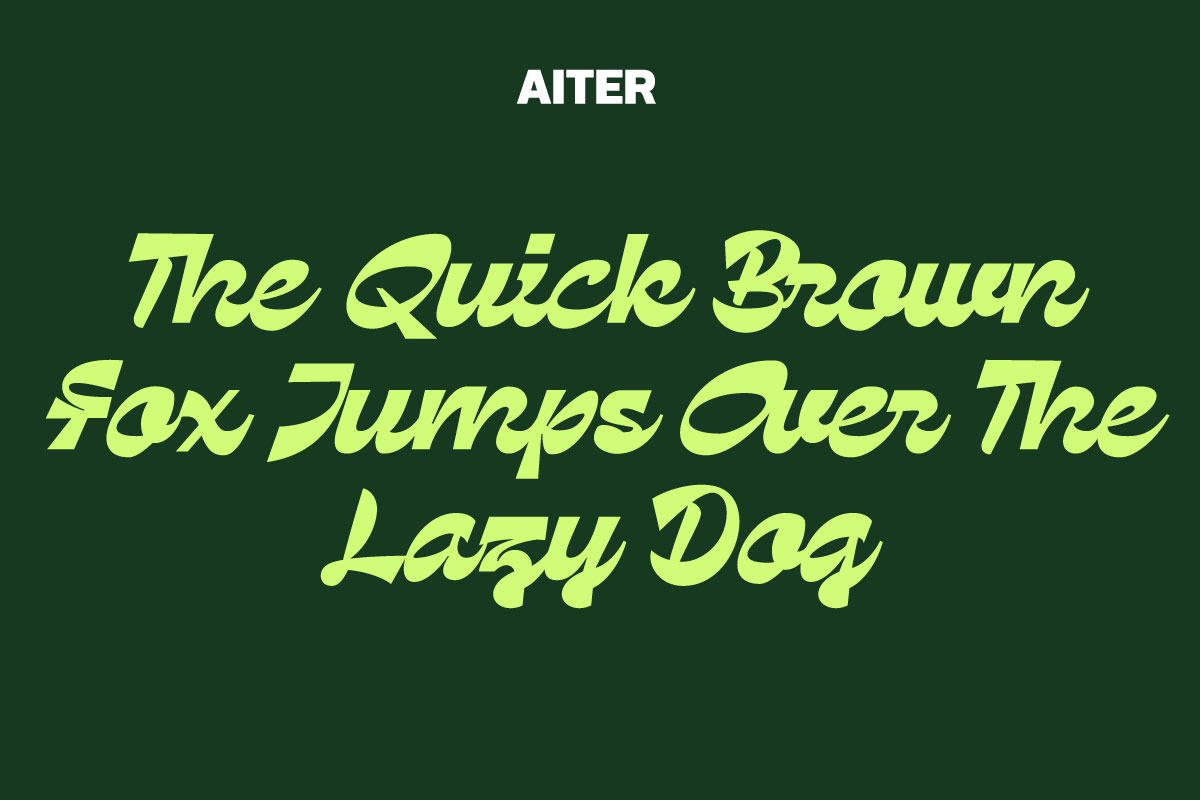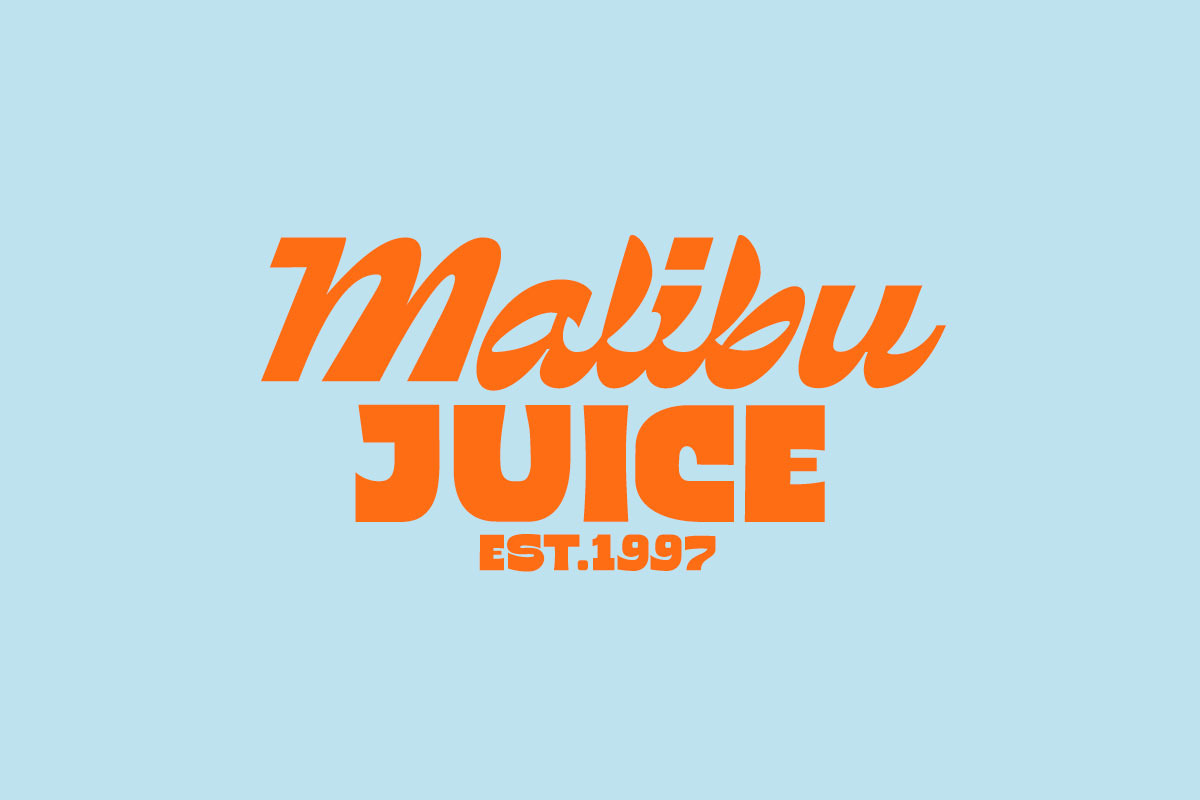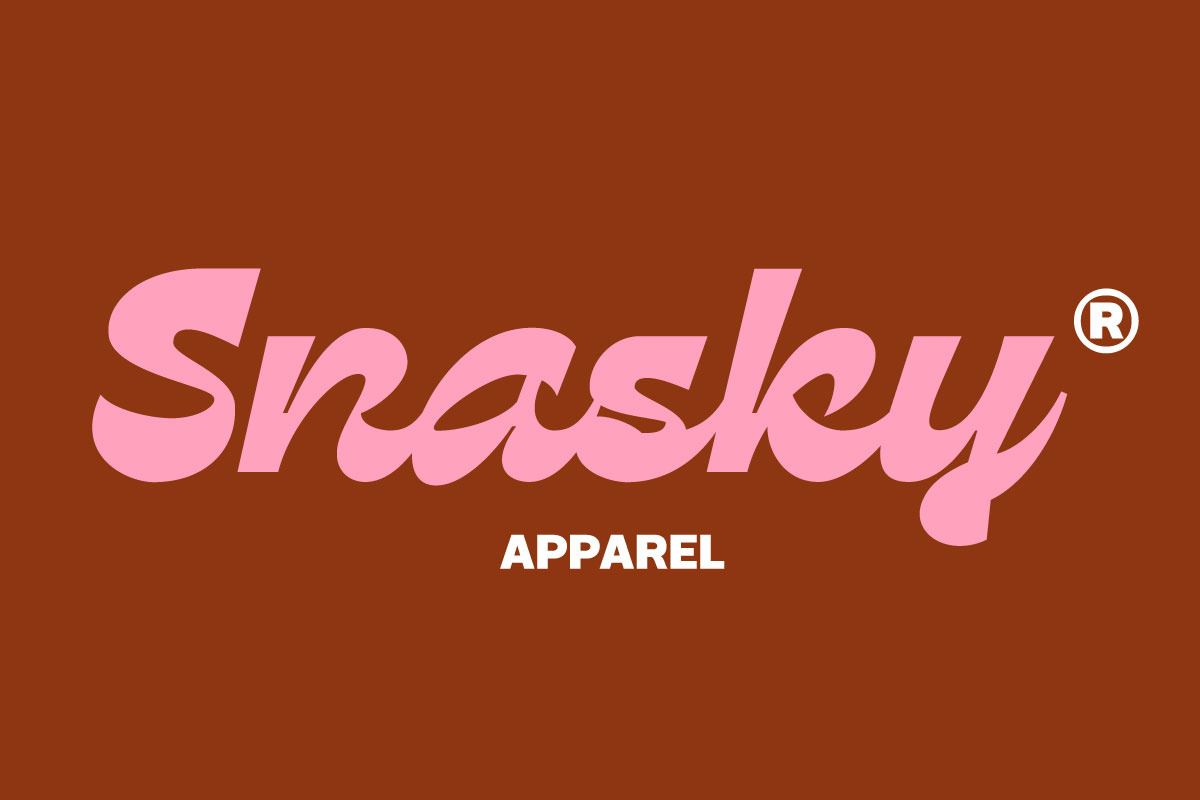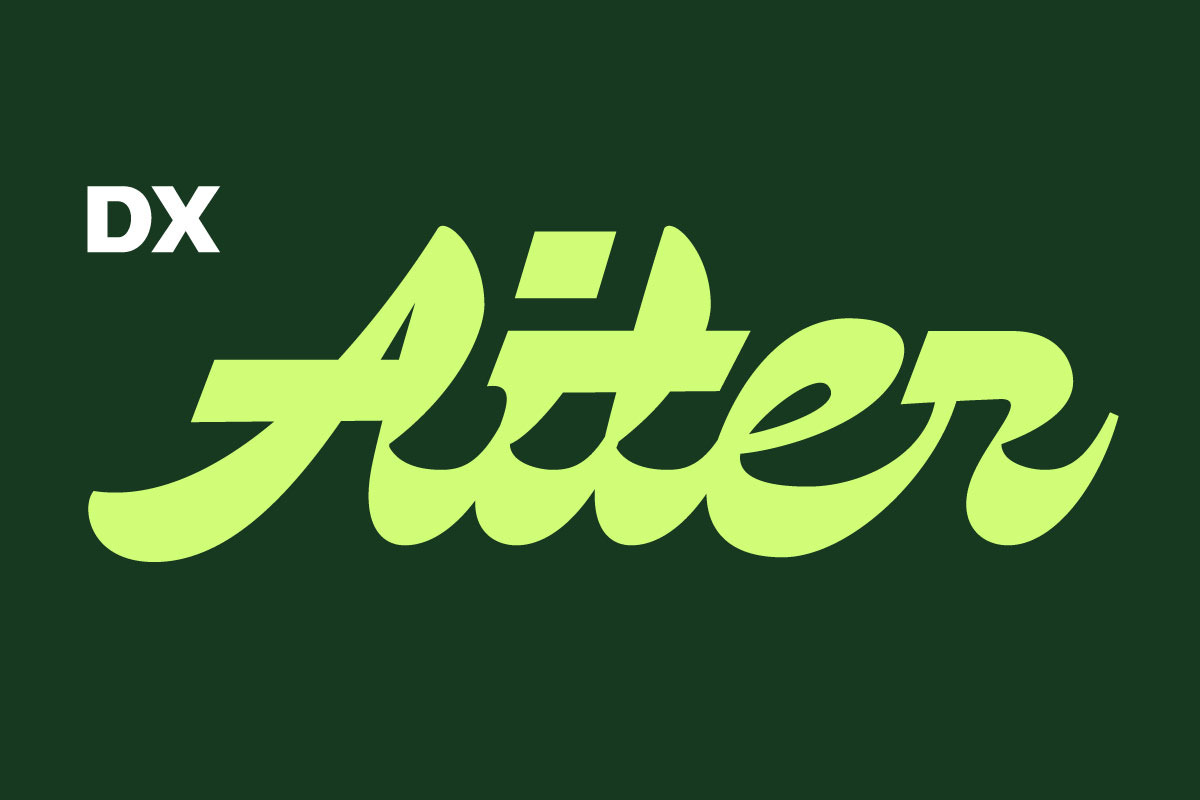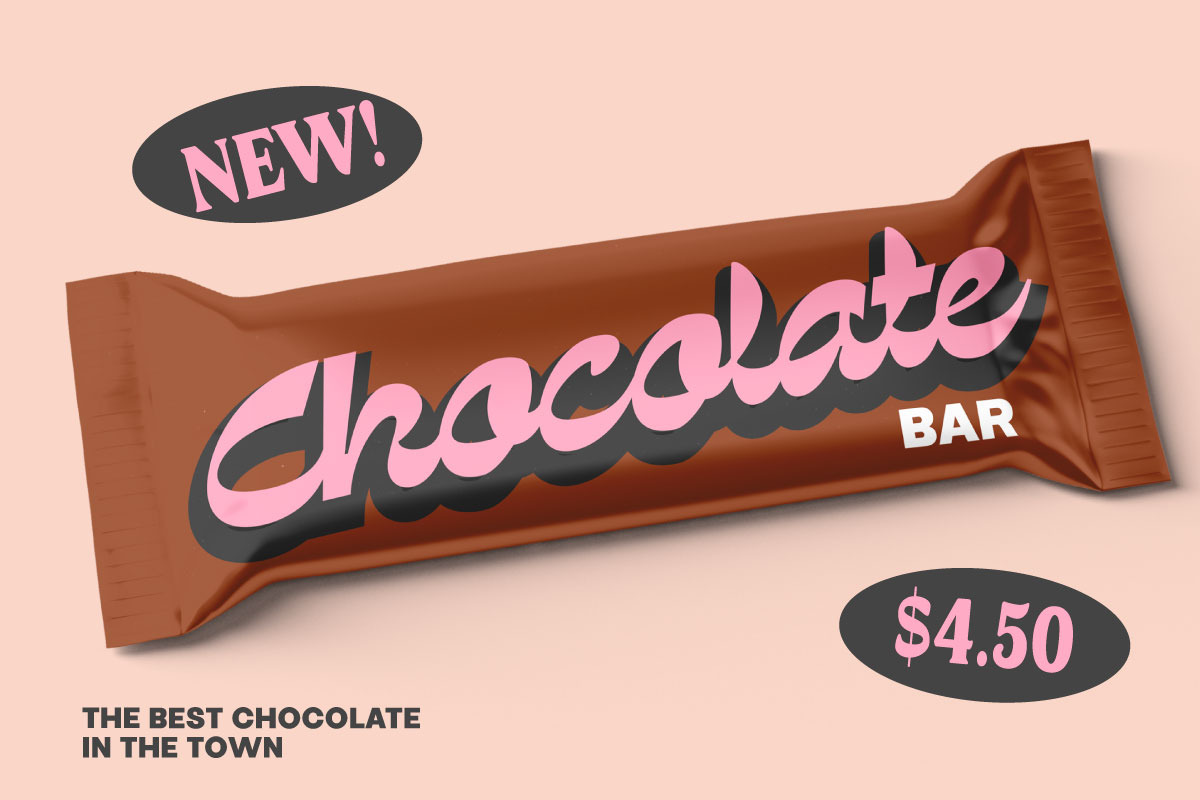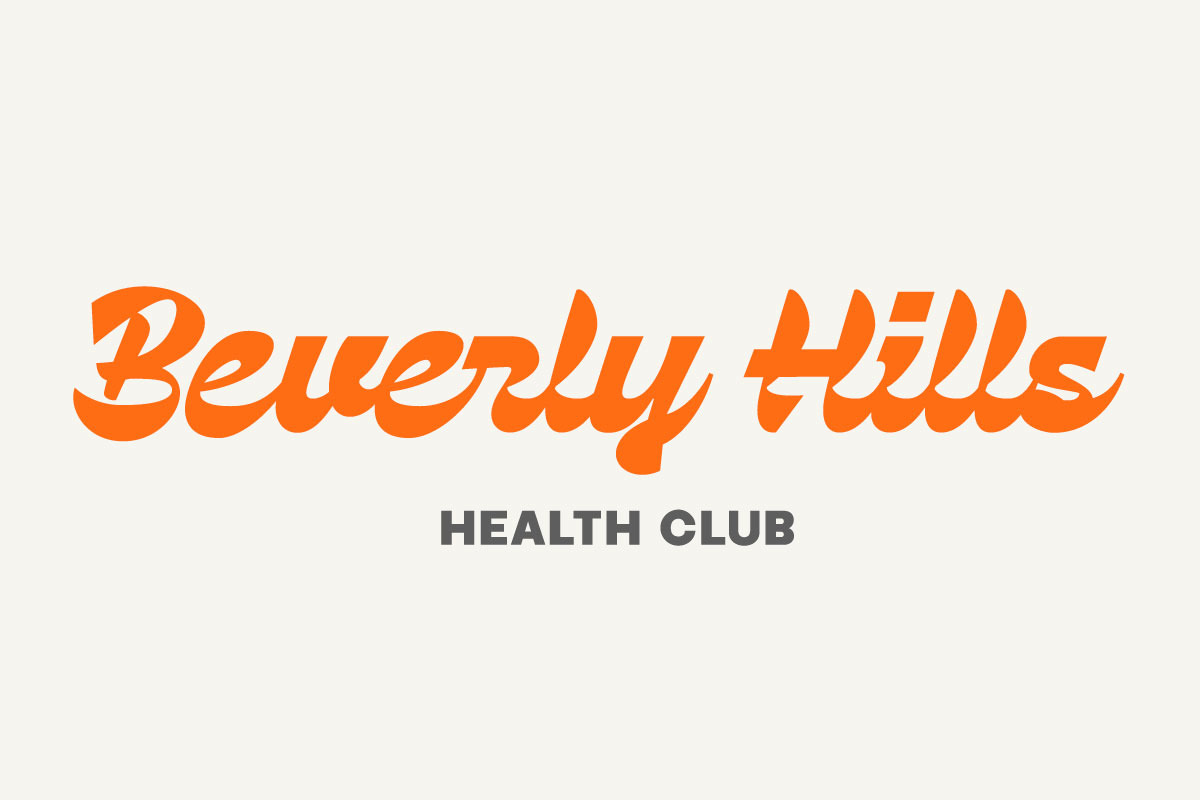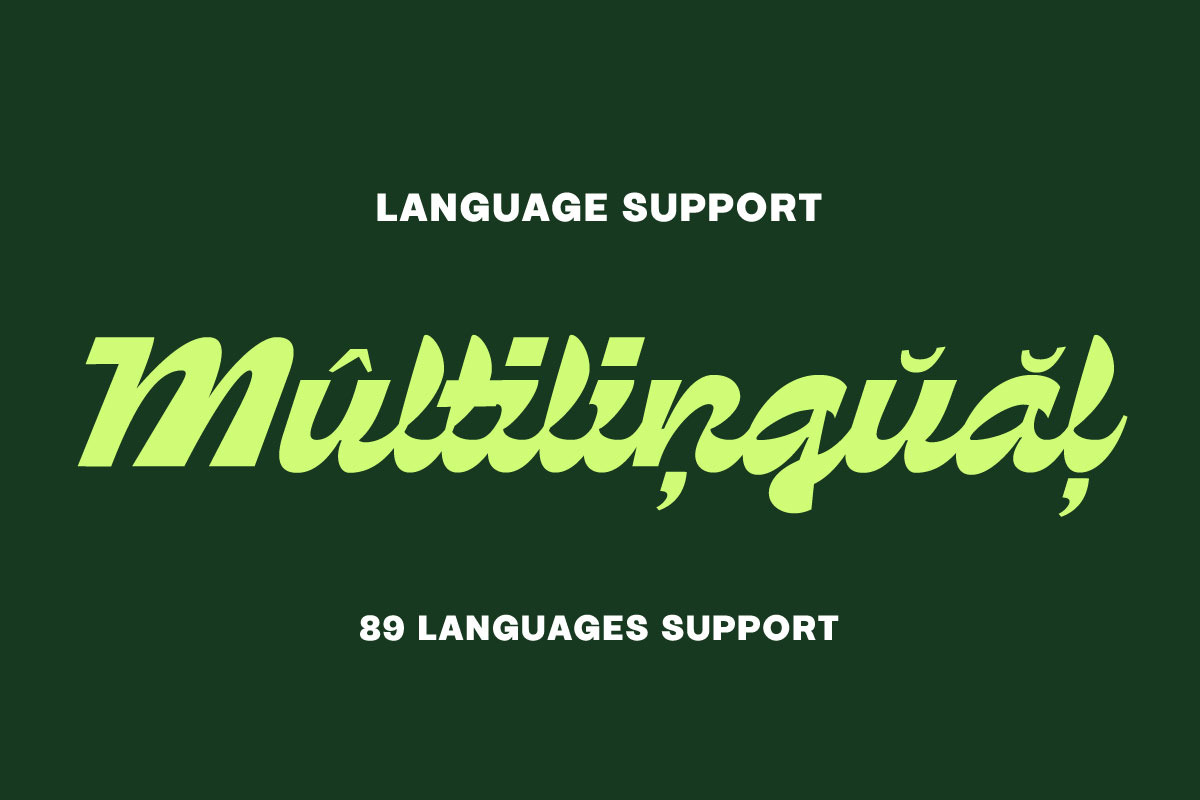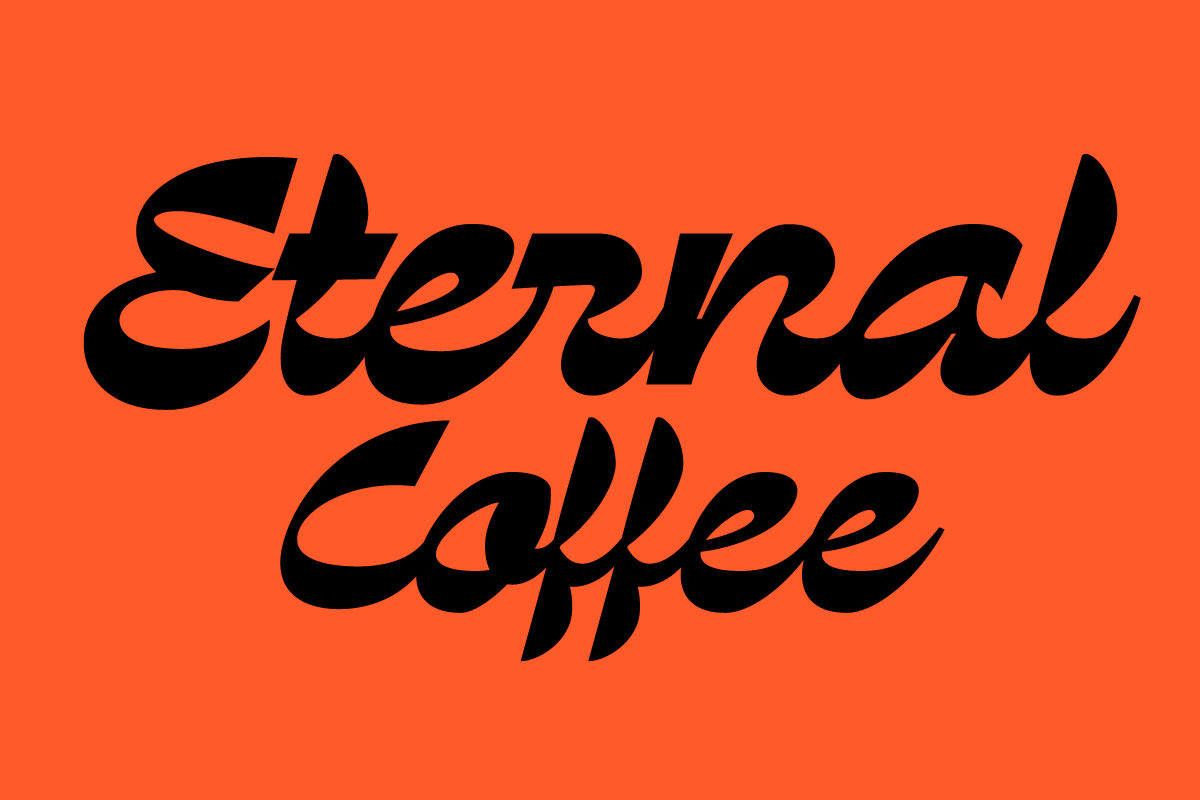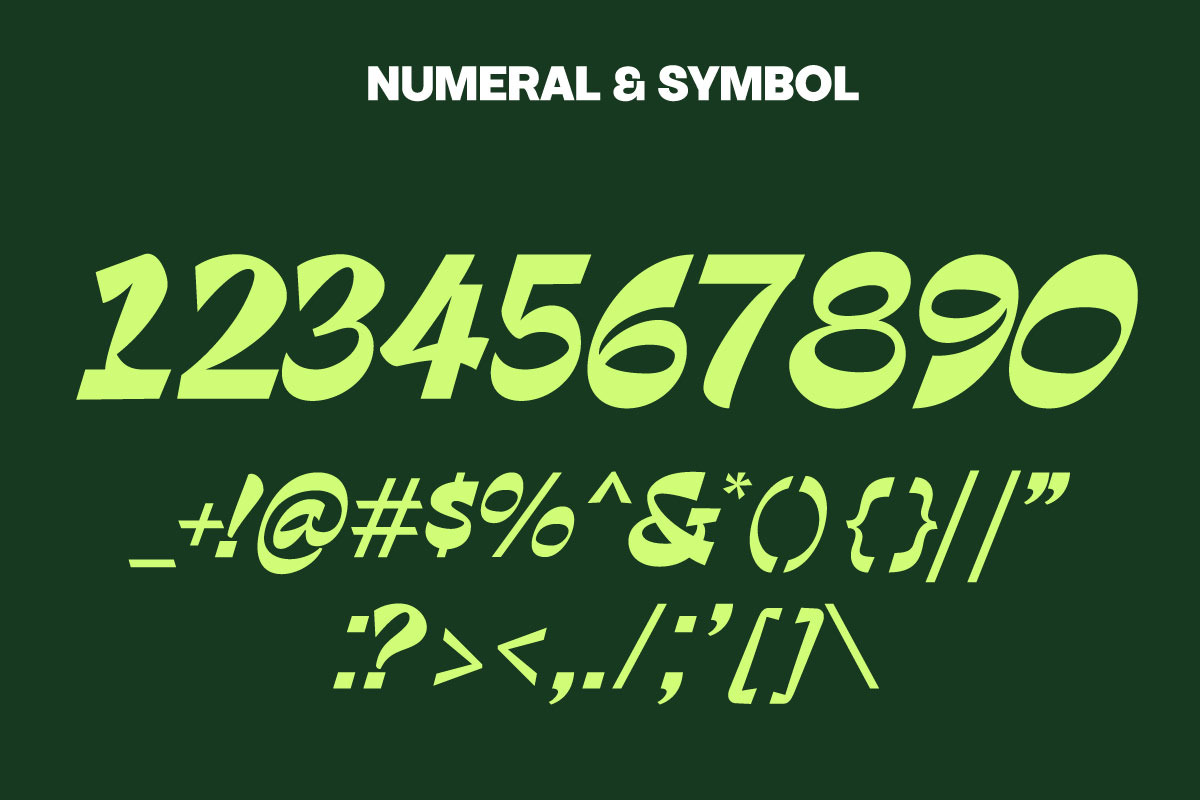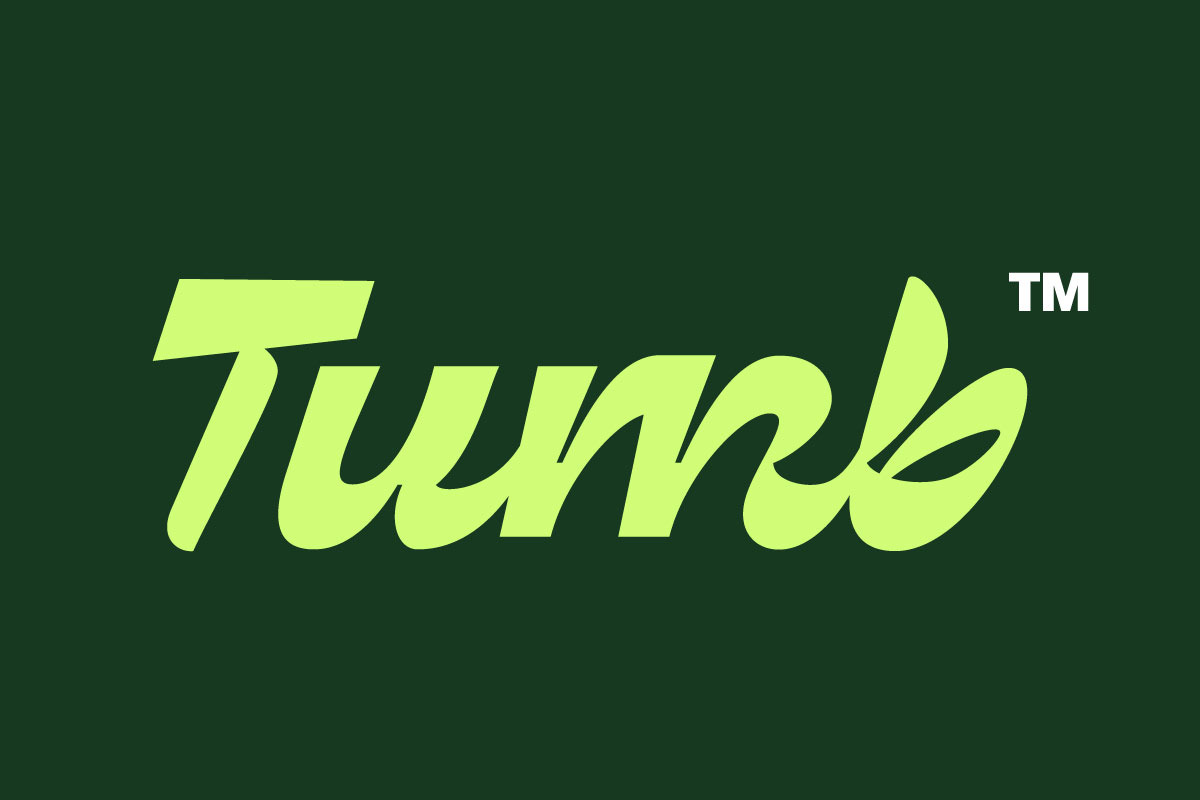
Dx Aiter - Bold Modern Typeface
Dx Aiter script is a modern classic style script font inspired by classic Sign Painting Handlettering. This font is complete with 363 Glyph sets, and also multi-language support which adds to the aesthetic that makes your work more interesting.
This font is perfect for your creative projects such as Logotype, printed quotes, invitations, cards, product packaging, headers, Letterhead, Apparel , Web design, Magazine, Book, etc.
- Total Glyph : 363
- Punctuation and Marks
- Contextual Alternative